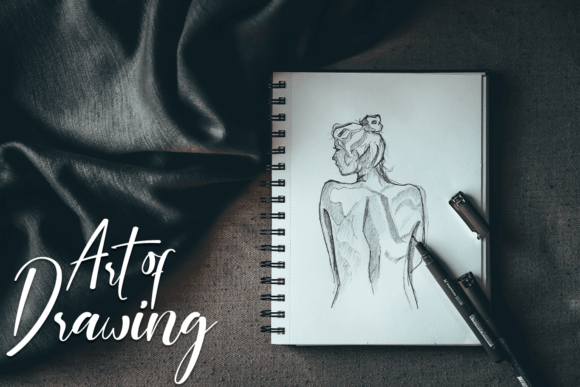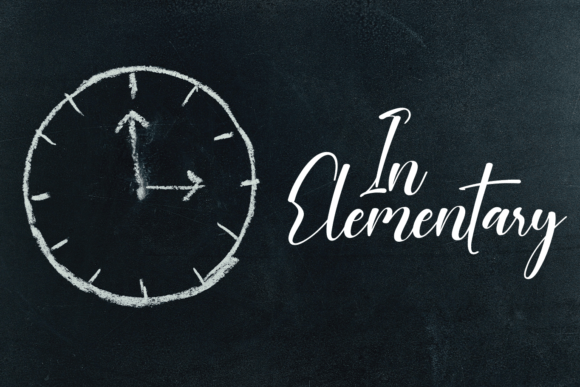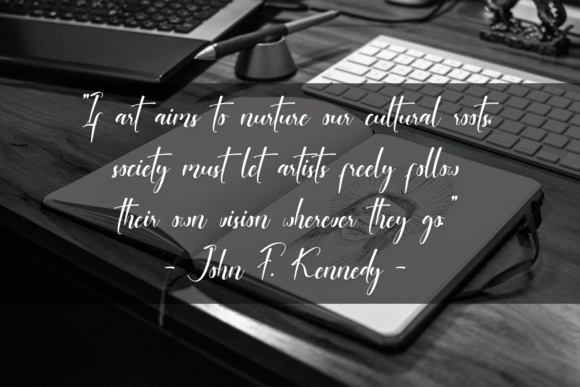
About Sketch Style Font
Sketch Style is an exquisite handwritten font, meticulously crafted to become a standout favorite. Skillfully blending classy calligraphic influences with a contemporary and fresh feel, this font is designed to captivate and elevate your projects to the highest levels. Fall in love with its unique charm and let it bring a touch of sophistication to your creative endeavors.
The font’s design retains a sense of timeless elegance, showcasing its calligraphic roots, while simultaneously embracing a modern and refreshing vibe. This balance makes Sketch Style a versatile choice for a variety of creative applications, ensuring that it seamlessly enhances your projects with a touch of class.
More than just a font, Sketch Style is a design masterpiece that brings a distinctive character to your work. Its handwritten style adds a personal and authentic feel, making it a true favorite for those who appreciate the artistry of well-crafted typography.
In essence, Sketch Style is not just a typeface; it’s an exquisite design tool that combines classic sophistication with contemporary freshness. Allow yourself to fall in love with its unique allure and watch as it takes your projects to new heights of creativity and refinement.